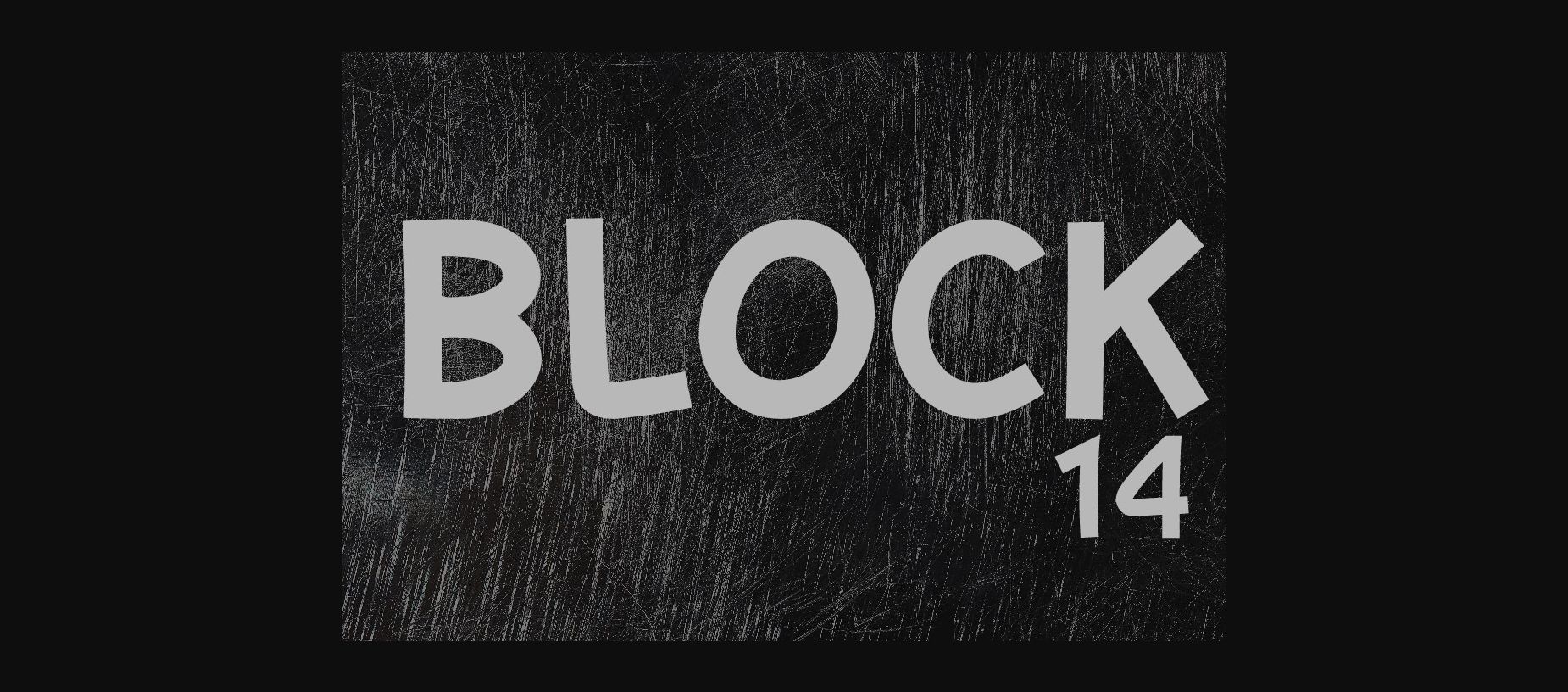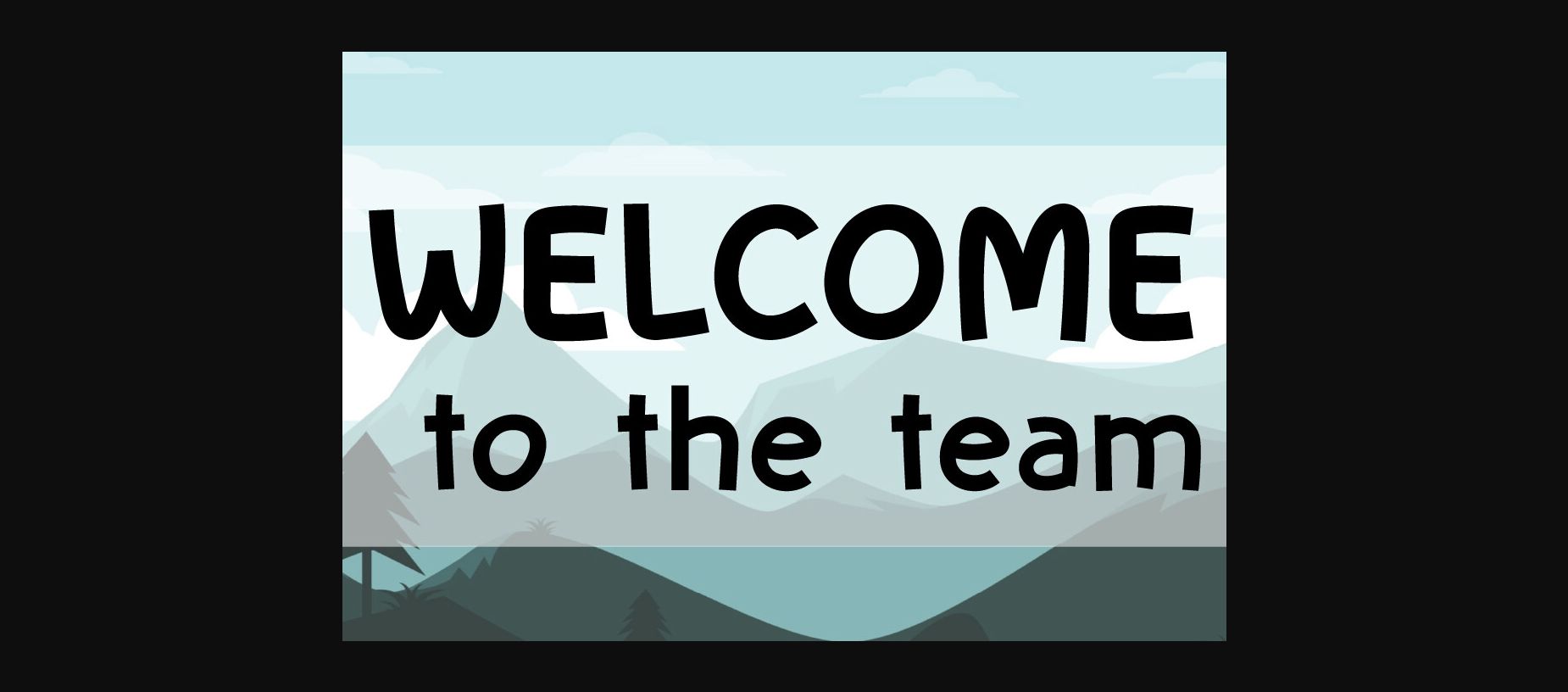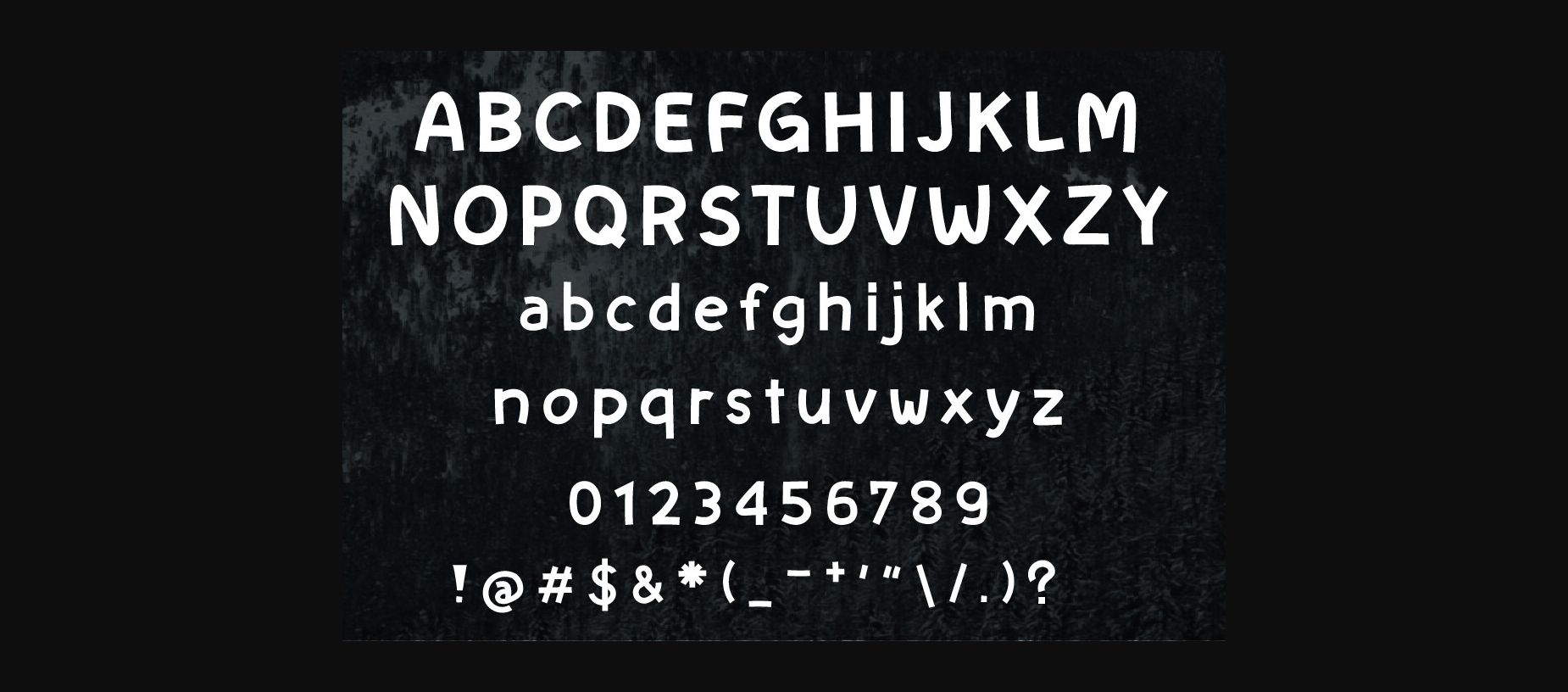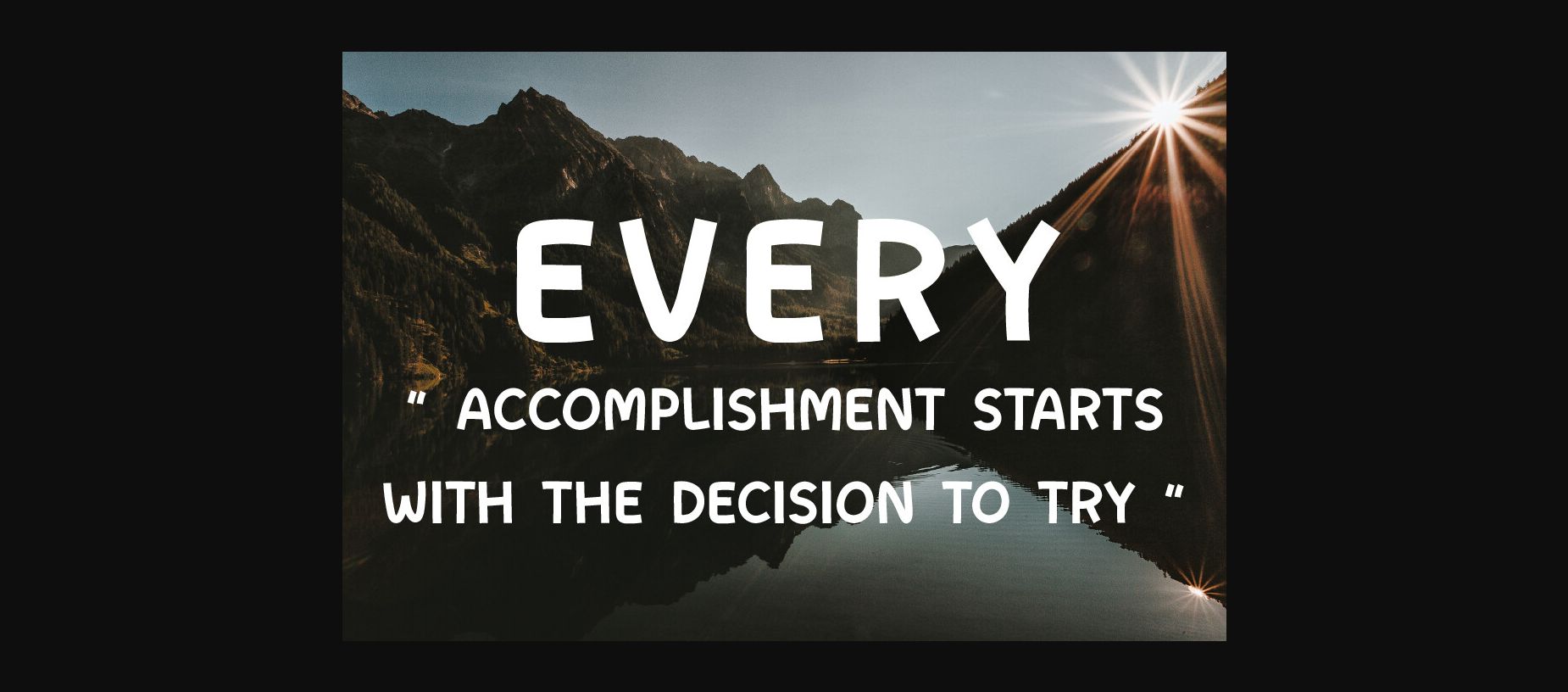
Block 14 Font
About Block 14 Font
BLOCK 14 is fun, casual and creative sans serif font. It works ideally for posters, T-shirt design or school and teacher decoration or digital art. This font will make your message stand out and grab attention.